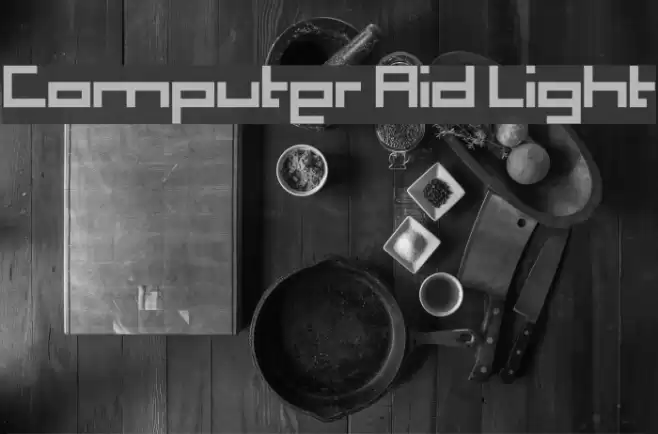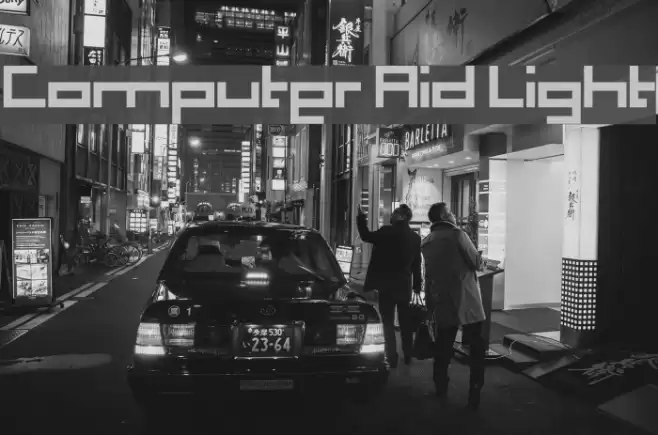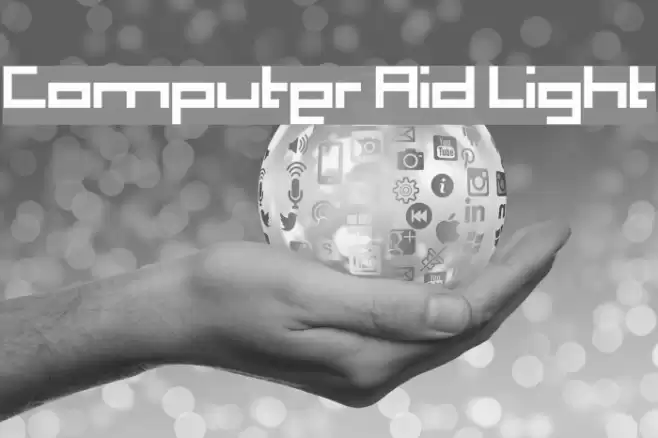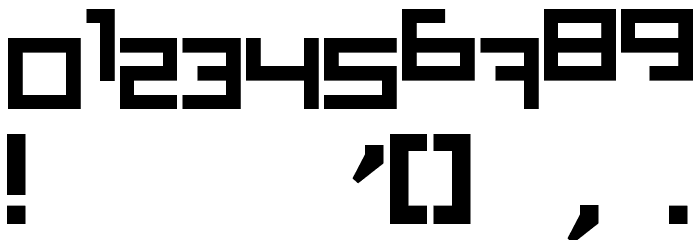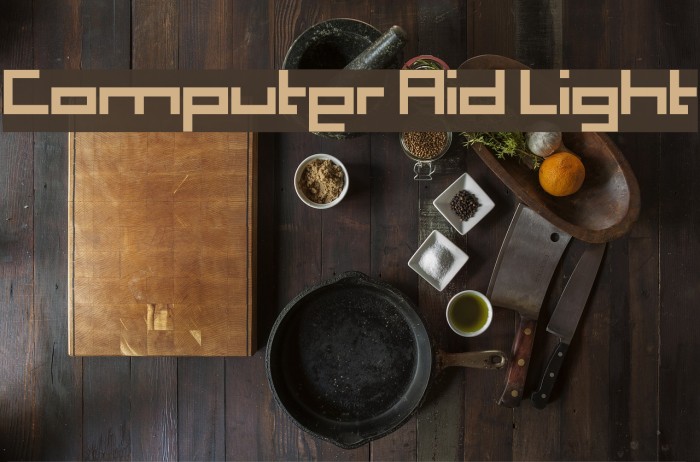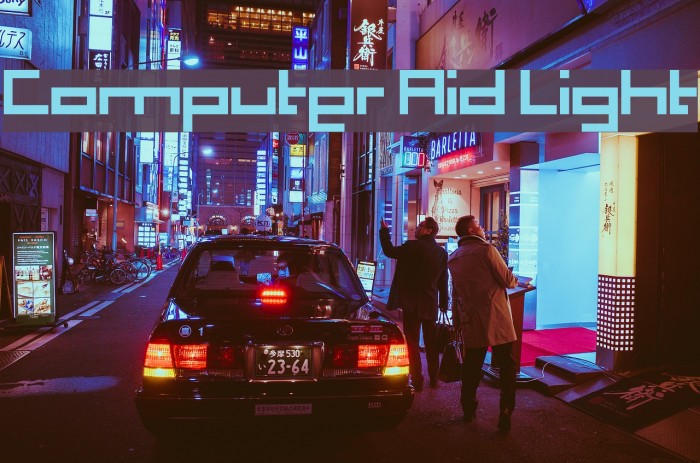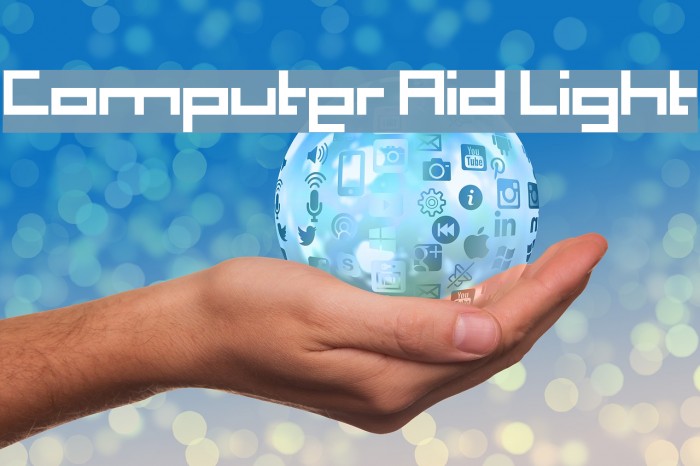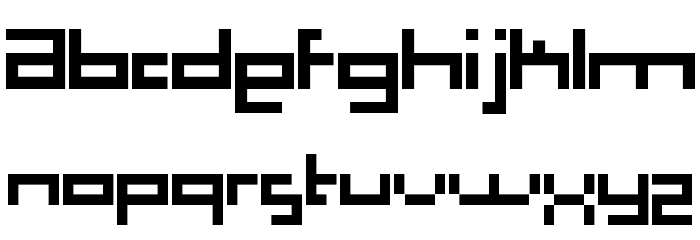
Computer Aid Light Font
Computer Aid Light Description
This font features a geometric and blocky design, characterized by its sharp angles and uniform stroke width. The uppercase and lowercase letters maintain a consistent height, giving it a monospaced appearance. The numerals and special characters follow the same angular and structured style, enhancing the font's cohesive look. Its futuristic and digital aesthetic makes it suitable for tech-related projects. The font's design is clean and minimalistic, with a focus on readability and modernity. The consistent stroke width and lack of curves contribute to its bold and striking presence.
A geometric, blocky font with a futuristic and digital aesthetic from Futuristic fonts.
- Proposed Projects: Ideal for tech branding, digital interfaces, video game design, and futuristic-themed posters.
- Use Case: Logos, Headlines, Digital interfaces